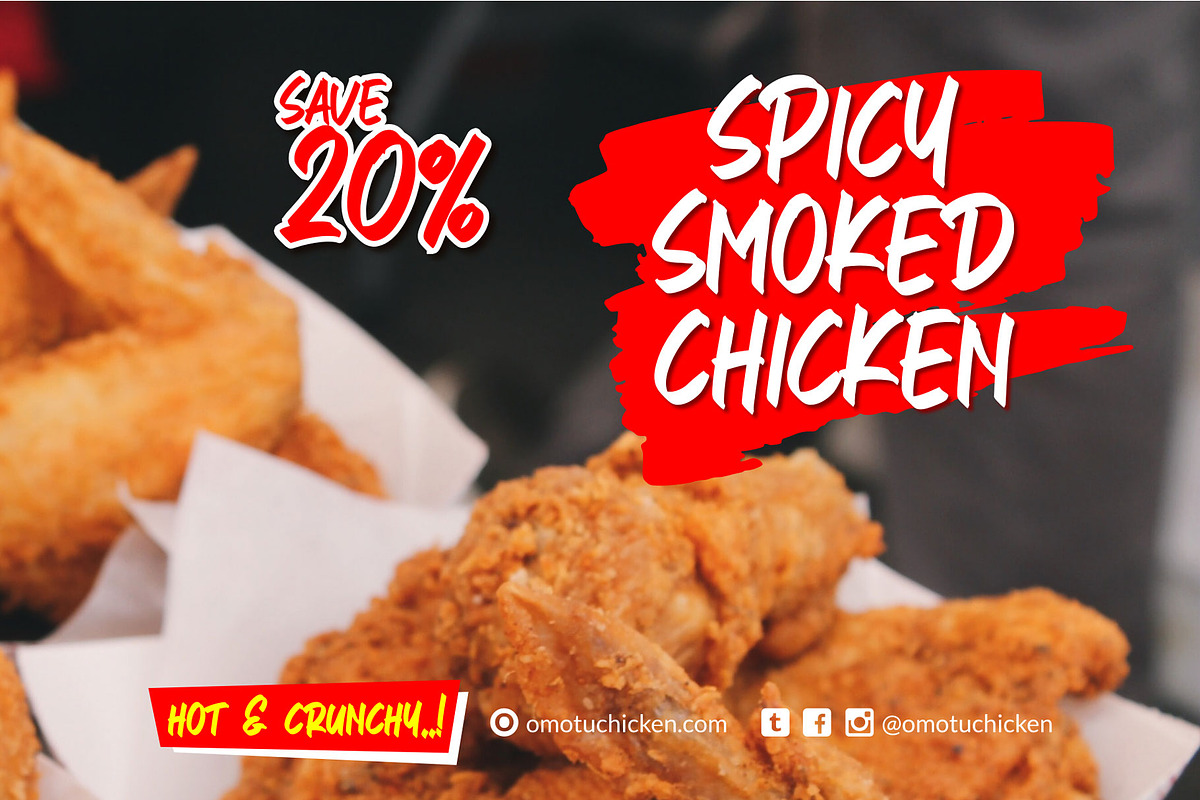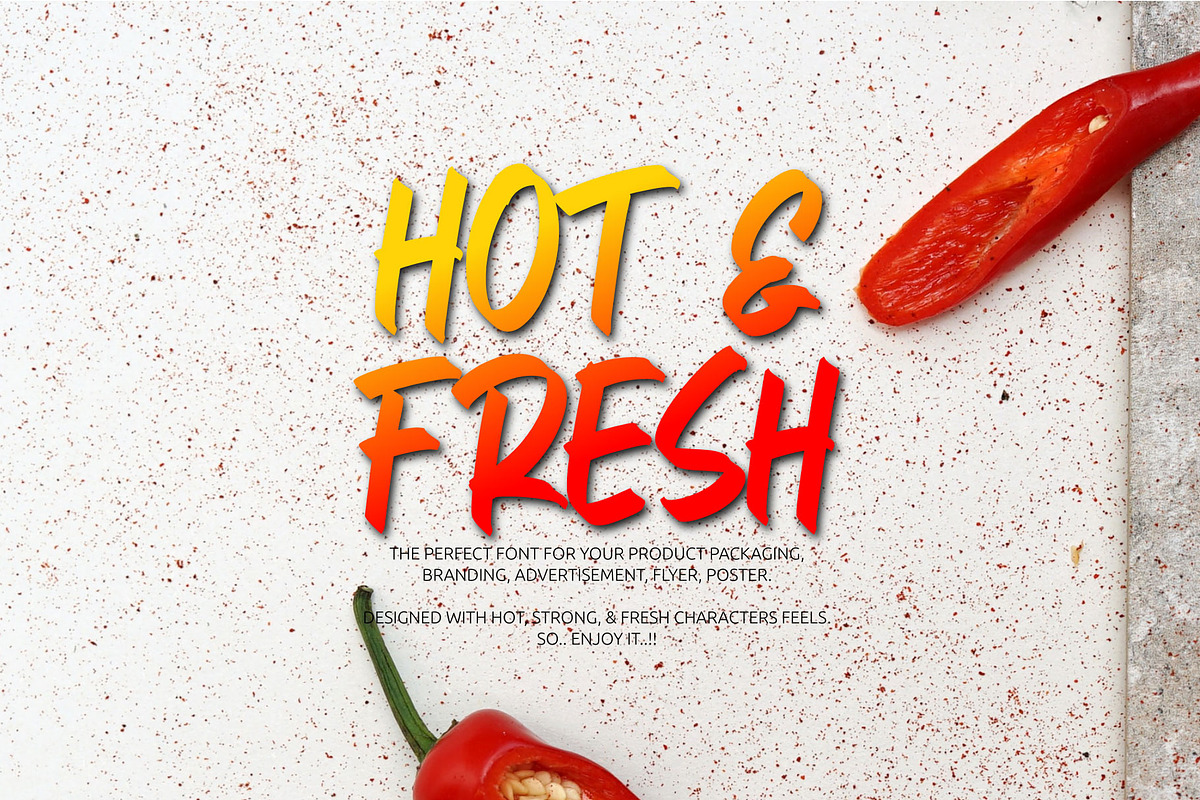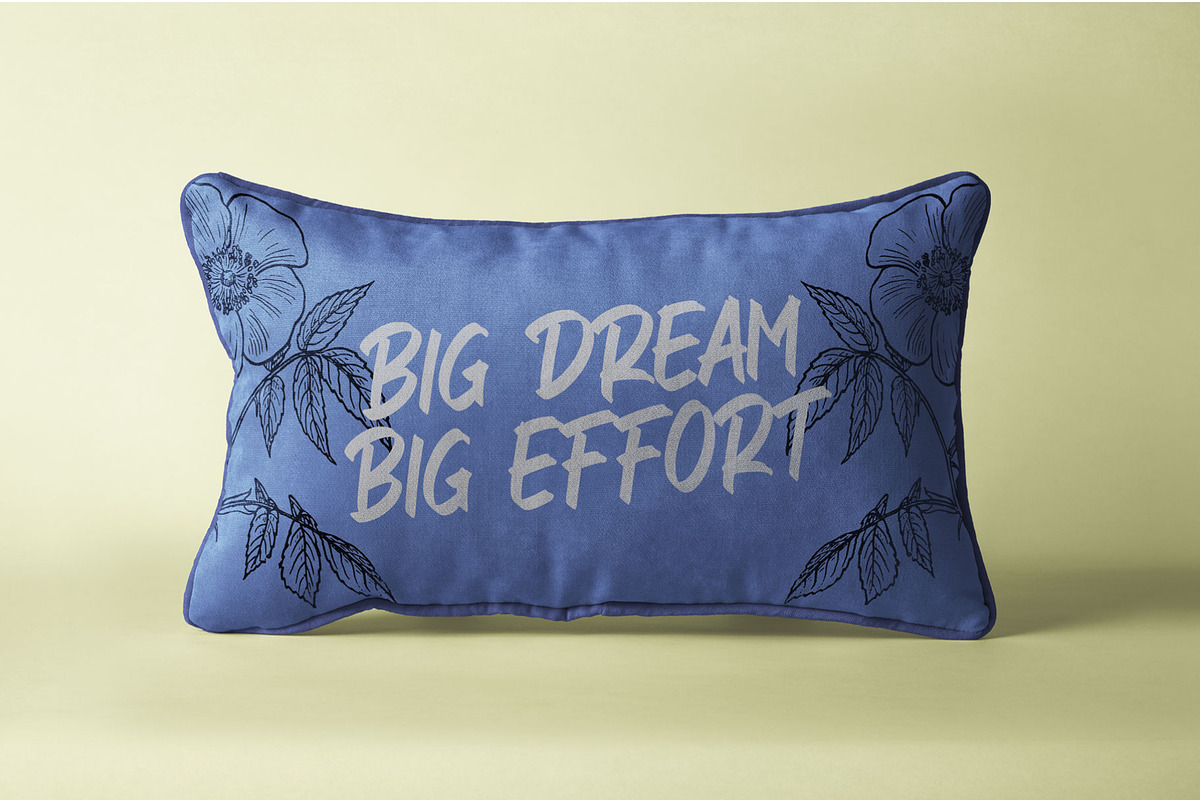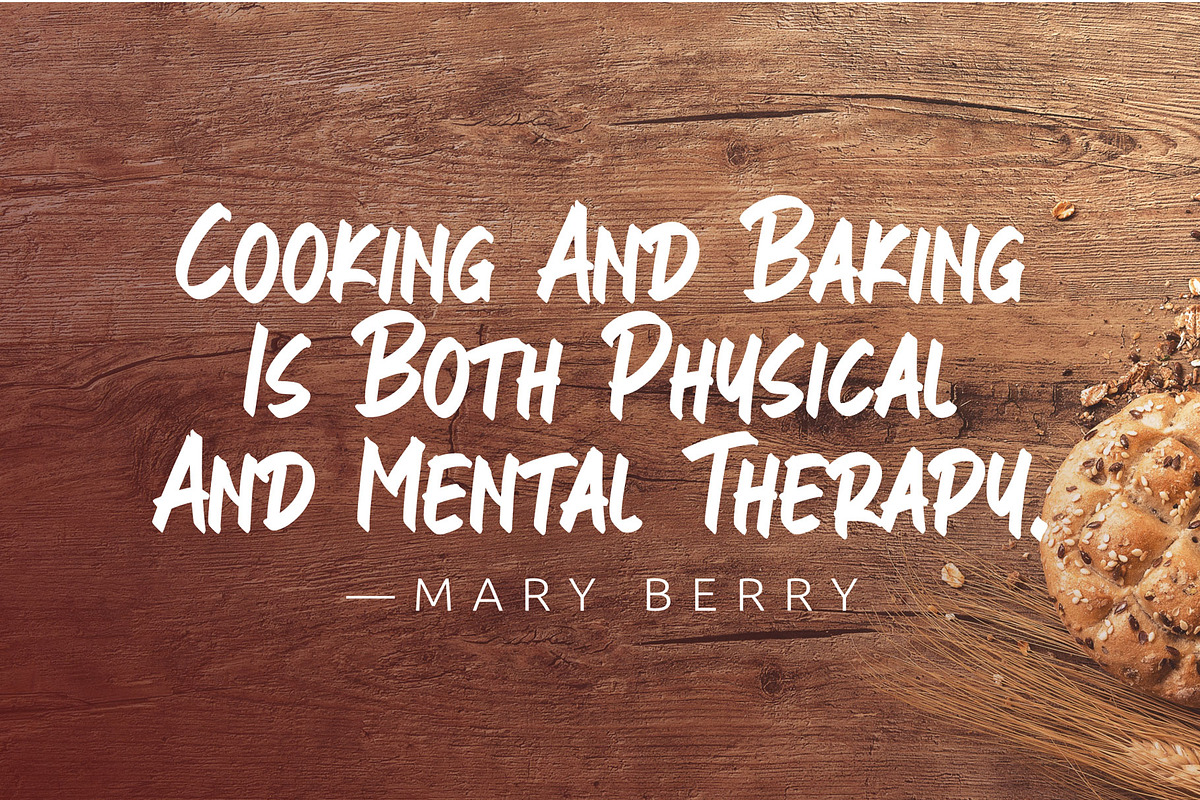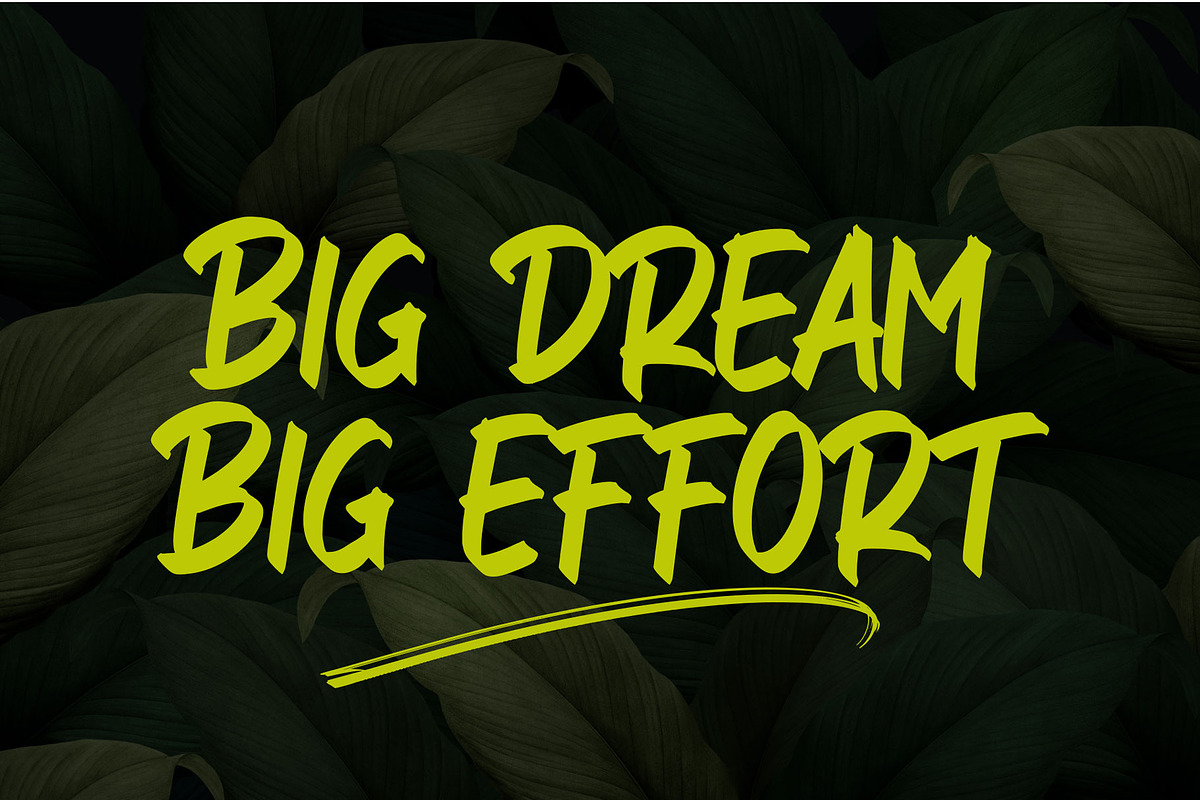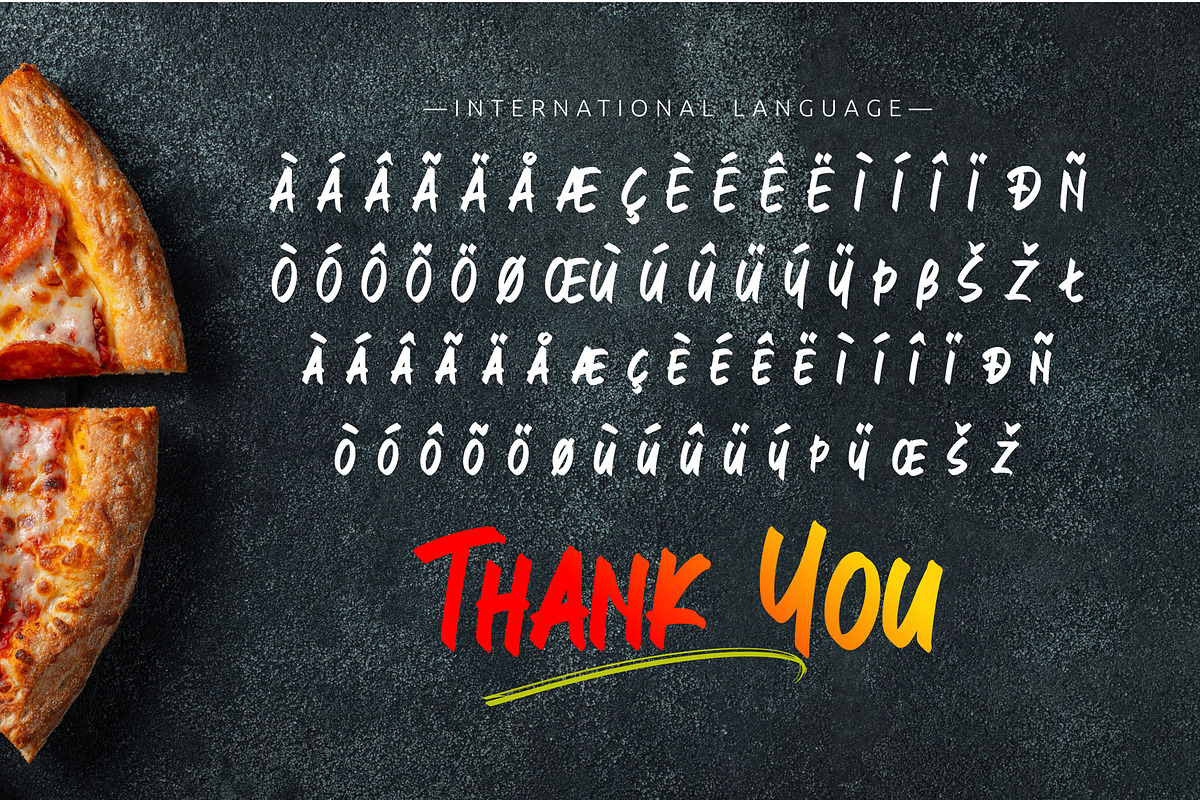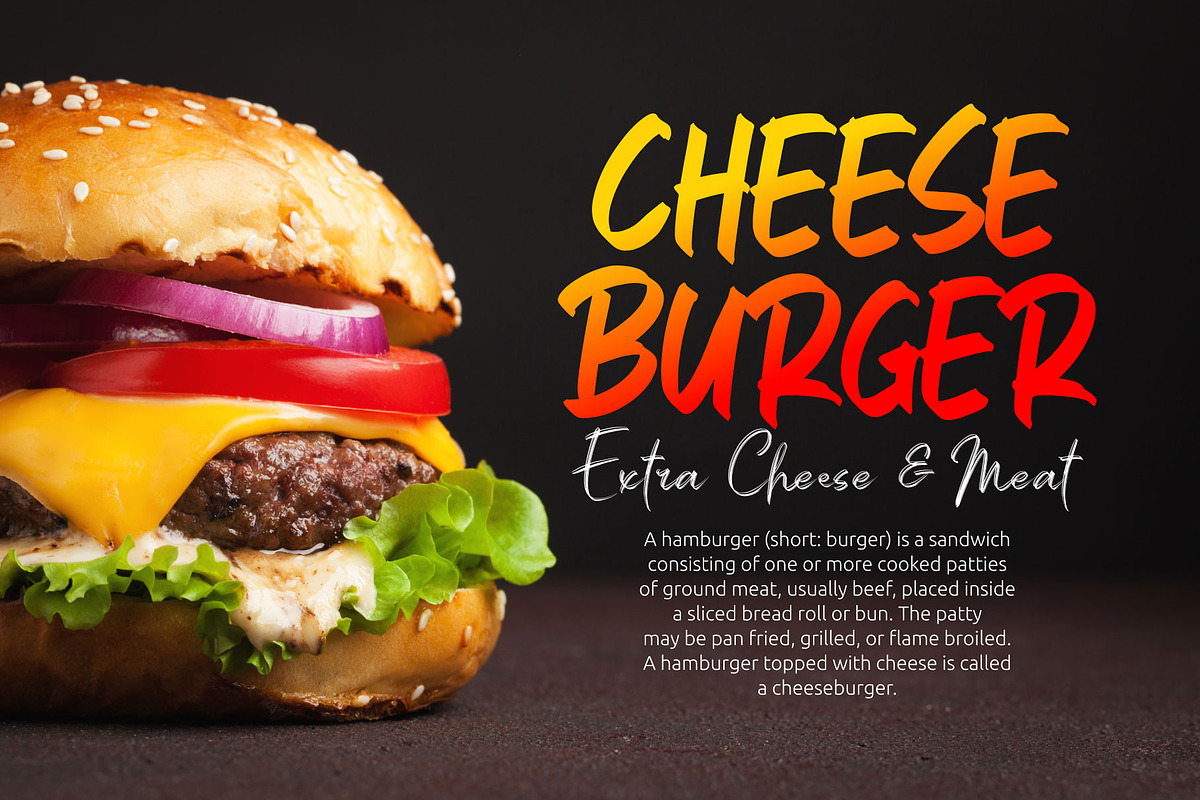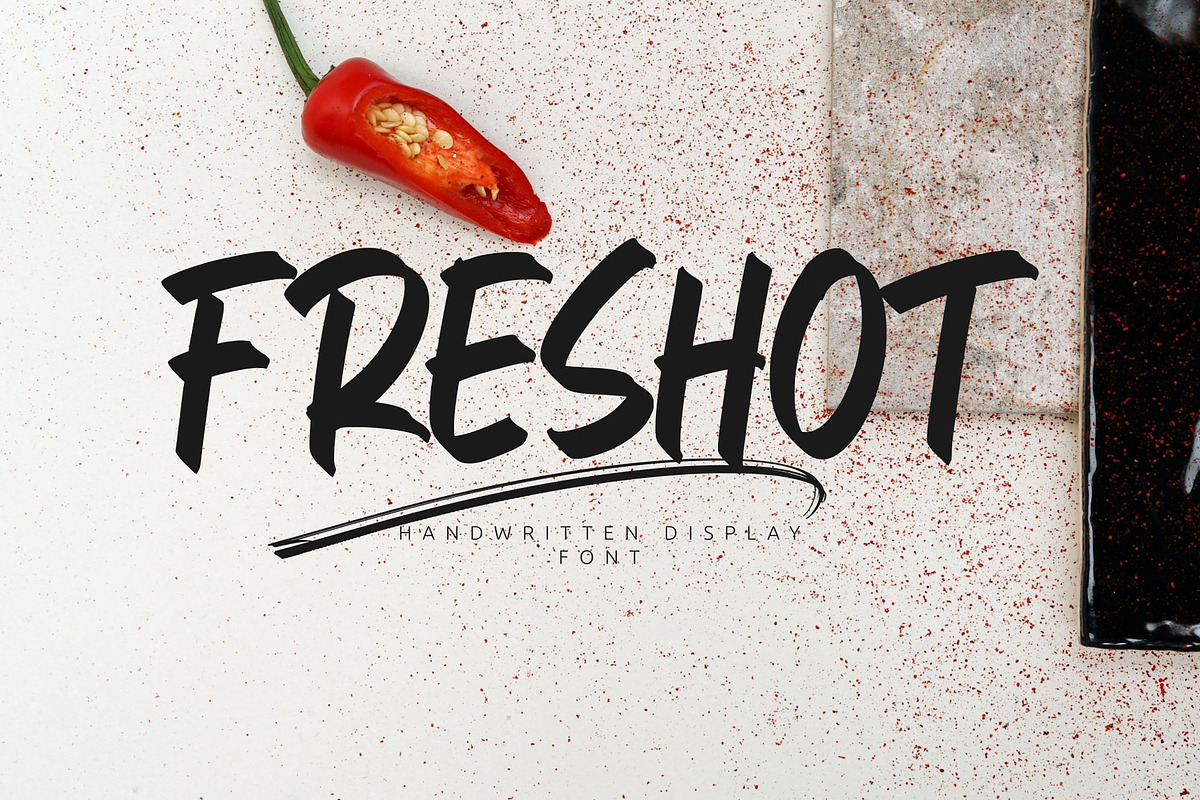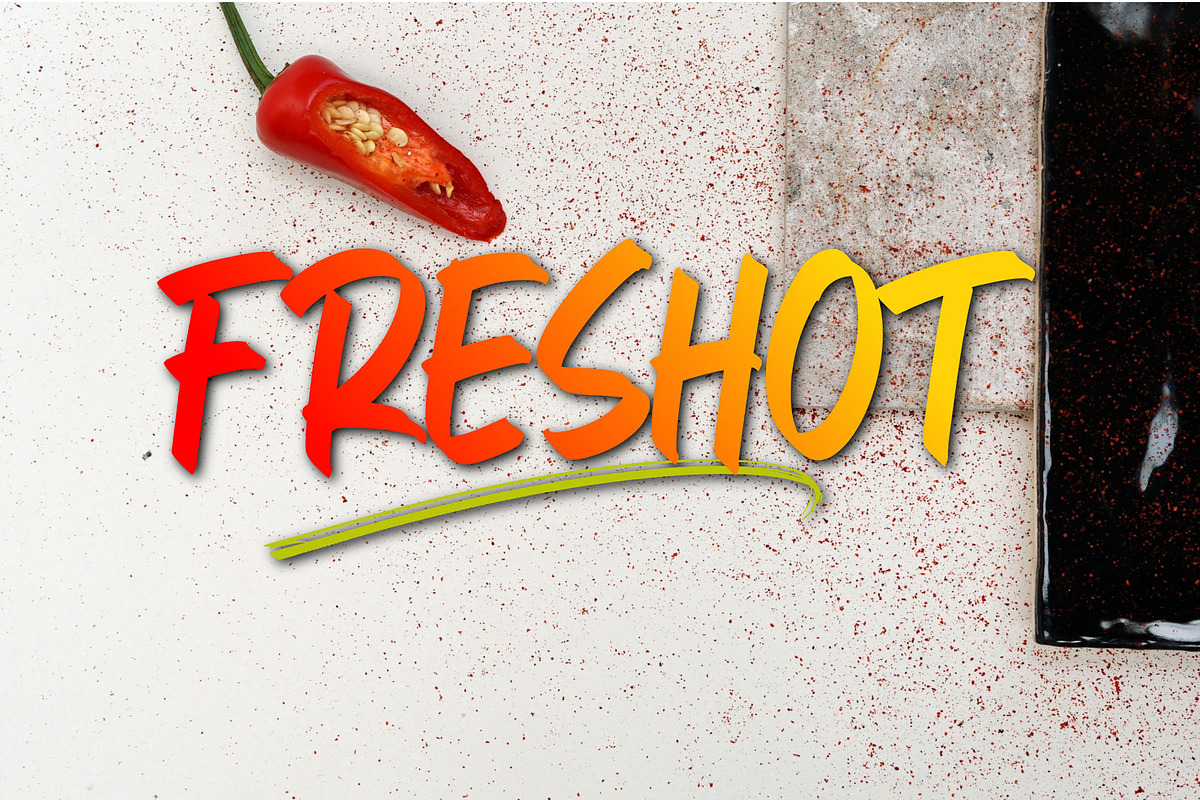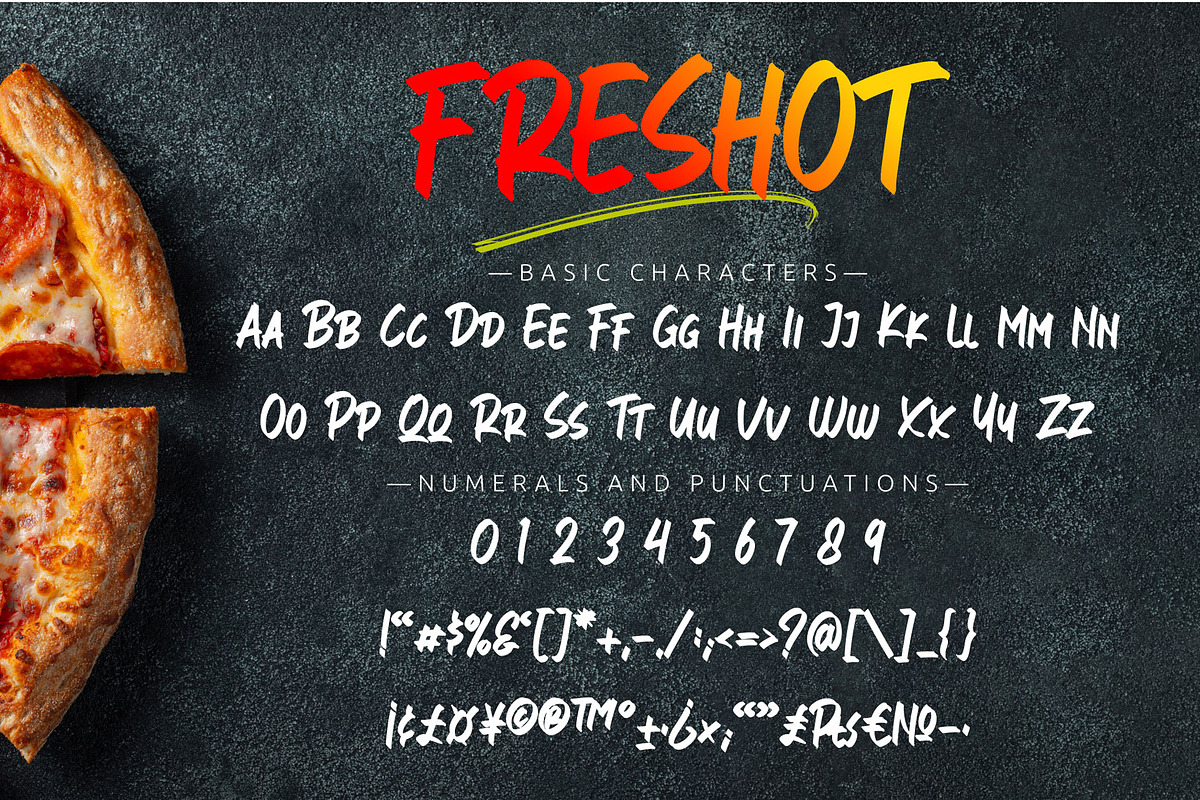
Freshot
FRESHOT! A handwritten displayh font with strong, fresh, hot characters. FRESHOT font is perfect for branding, apparel, T-shirt, Hoodie, product packaging, quotes, flyer, poster, and advertisement.
- Supports international languages
- Numerals, punctuations